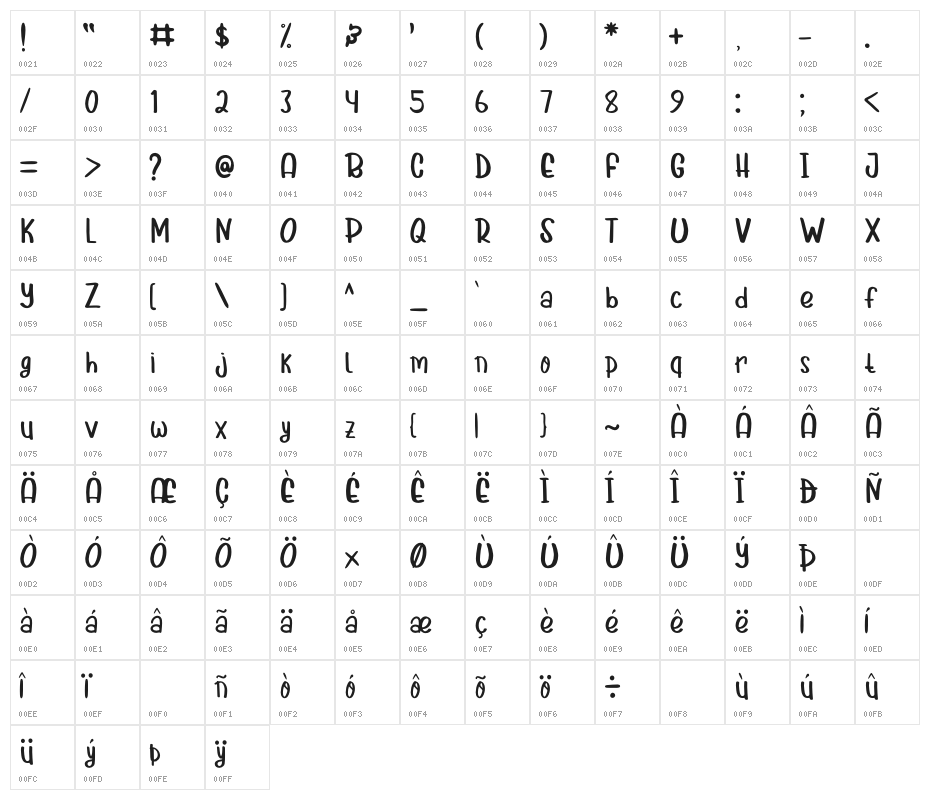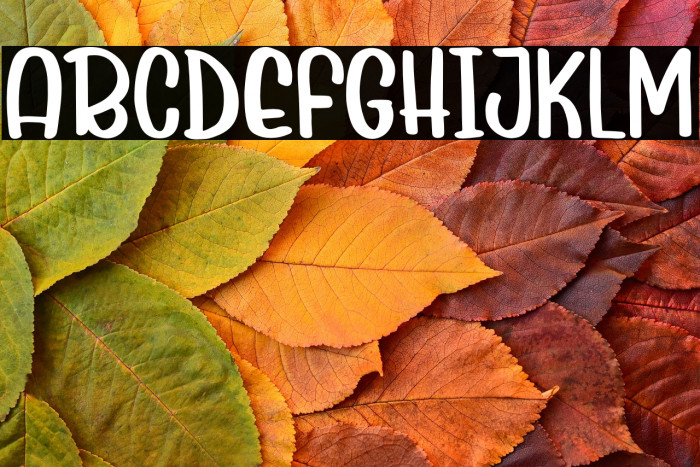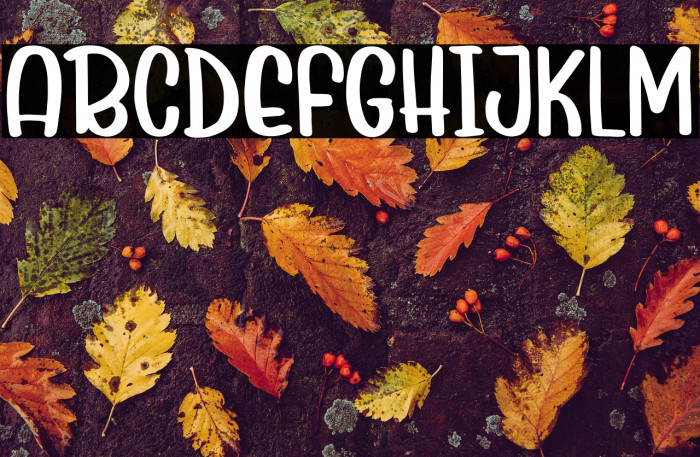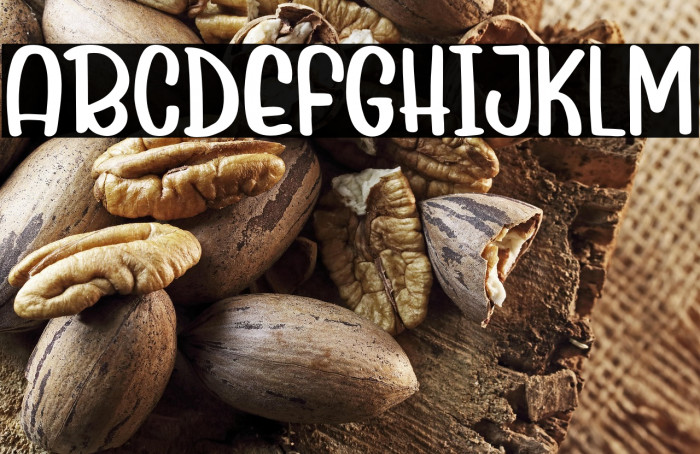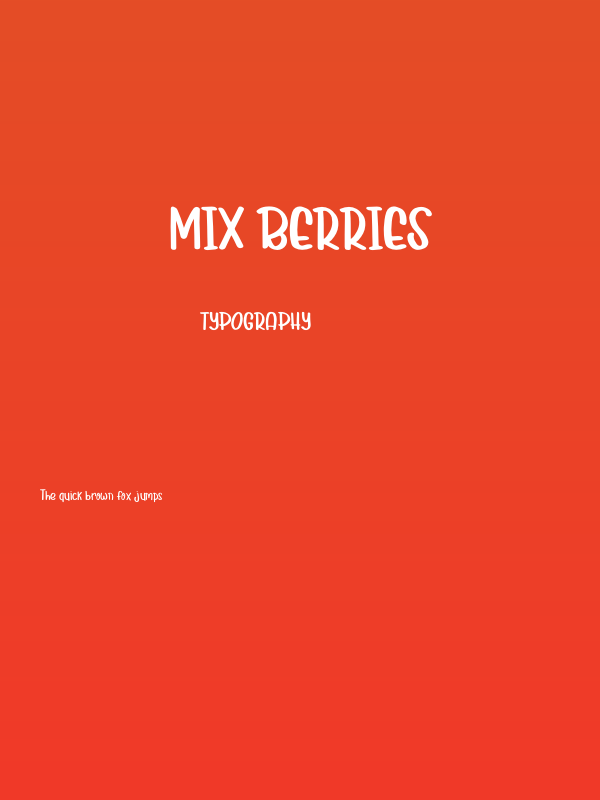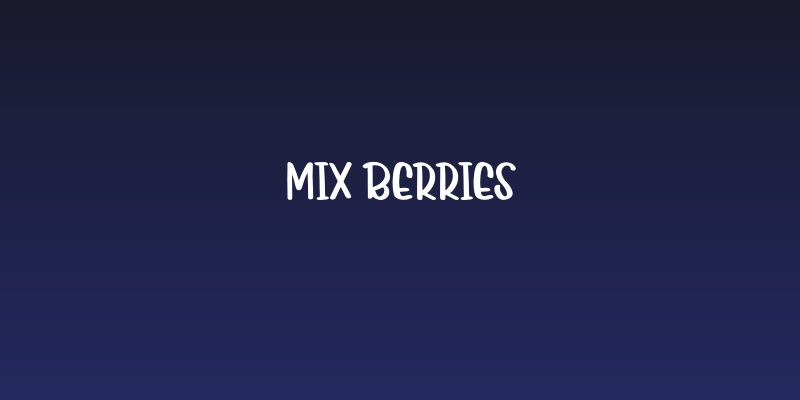
Mix Berries Font
Mix Berries Description
This playful and whimsical font features a handwritten style with a bold and rounded appearance. The characters are slightly irregular, adding a touch of charm and personality. The uppercase letters are tall and prominent, while the lowercase letters maintain a consistent flow with subtle variations in height and width. Numbers and special characters are designed to match the playful aesthetic, making them suitable for creative projects. The font's overall style is casual and friendly, making it ideal for designs that require a personal touch.
| Proposed Projects | Ideal for children's books, greeting cards, playful branding, and social media graphics. |